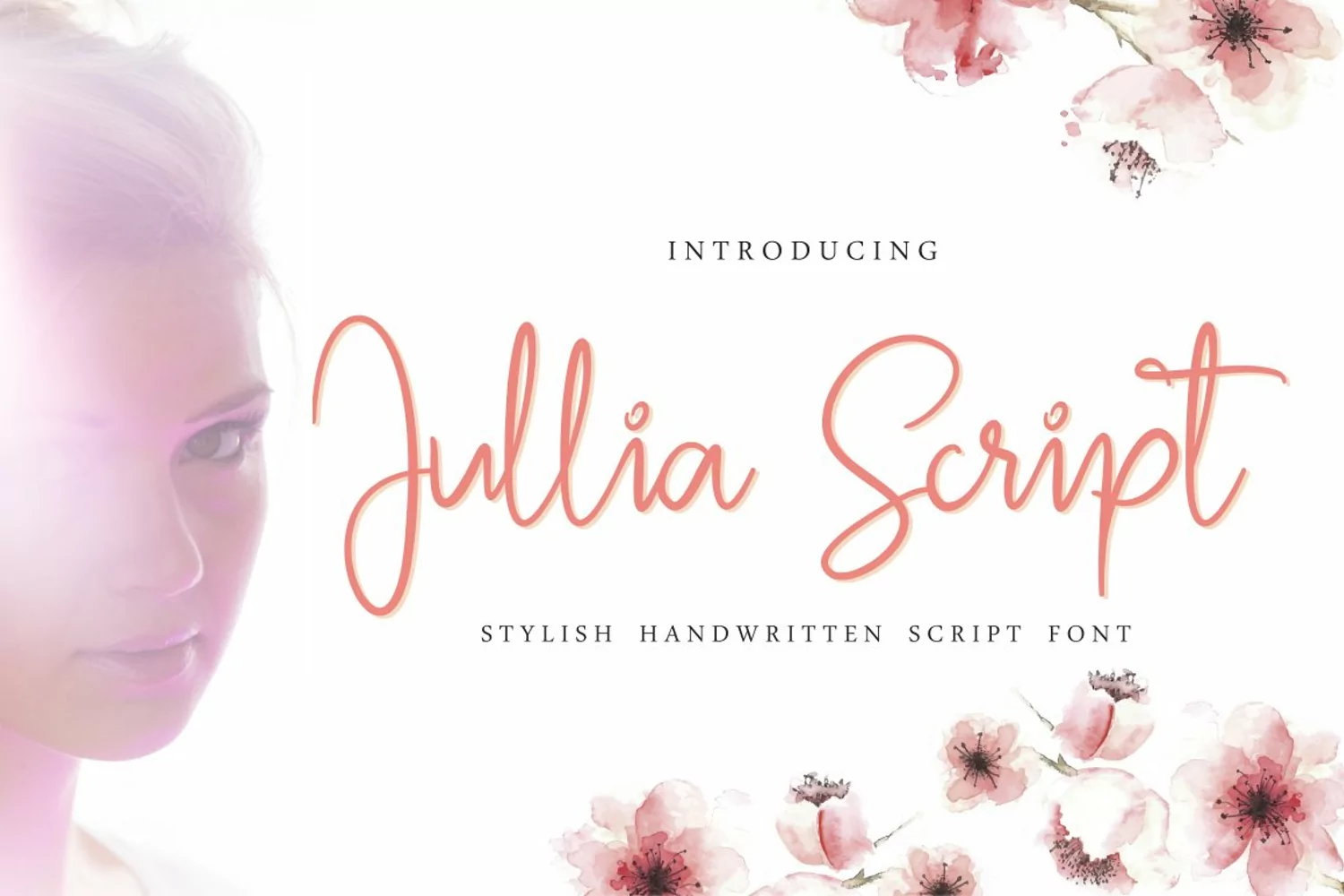
Jullia Script is an elegant handwritten font. Carefully crafted from handwriting, Jullia Script it flows gracefully with a sweet and feminine feel. This font contains both uppercase and lowercase letters, punctuation, numerals, and stylistic alternates. You can use this elegant handwritten font for wedding designs, logos, business cards, quotes, and more.